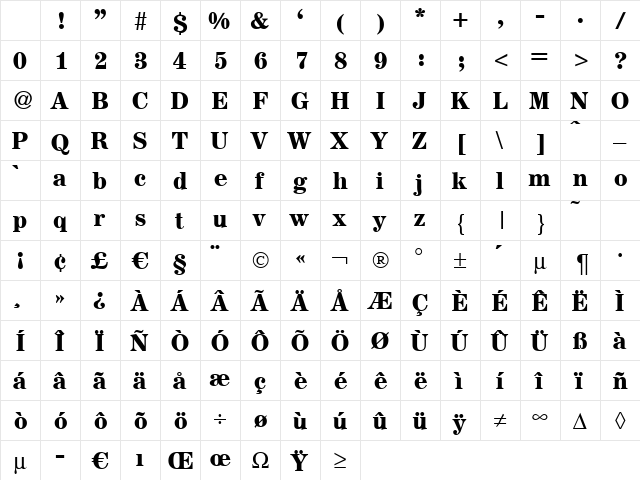
Complete A850-Roman Bold glyph index. Displaying only characters natively supported by A850-Roman Bold font.
A850-Roman is a composed and adaptable typeface that performs quietly and consistently across a wide range of design contexts. Its bold stroke weight gives it real presence on the page.